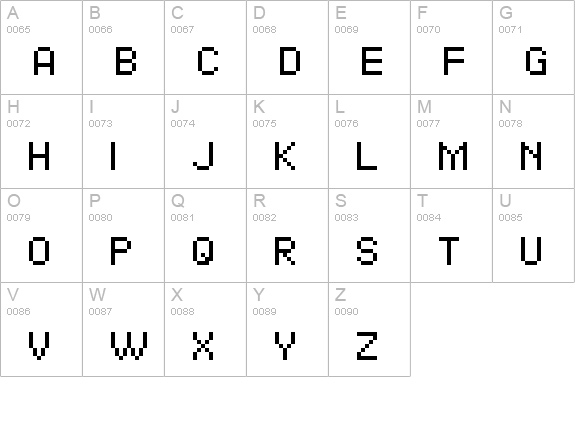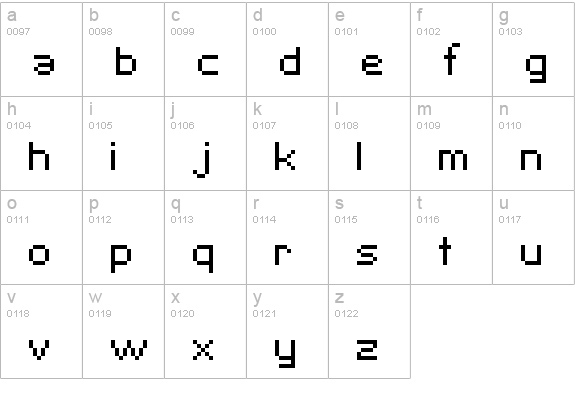
SF Pixelate Font Details
SF Pixelate is a captivating and visually striking font that brings a unique twist to your designs. With its pixelated and blocky appearance, this font adds a touch of retro charm while maintaining a modern edge. The precision and clean lines of SF Pixelate make it perfect for various design projects, from digital art to gaming graphics or even futuristic branding. One of the best things about SF Pixelate is that it is available for free. Yes, you read that right! This incredible font can be freely downloaded from FontsMarket.com, allowing you to add a dynamic and eye-catching element to your creations without breaking the bank. Whether you're a professional designer or a passionate hobbyist, SF Pixelate offers you the opportunity to explore your creative potential without any cost barriers. The versatility of SF Pixelate is unparalleled. Its distinct and bold aesthetic is ideal for creating attention-grabbing headlines, logos, posters, and more. The pixelated design gives your text a vintage video game vibe, instantly evoking nostalgia and capturing the imagination of viewers. Additionally, its legible and easy-to-read characters ensure that your message is conveyed effectively, even in small sizes or on screens with low resolution. SF Pixelate is a font that embraces the digital age while paying homage to the past. Its seamless integration of retro and contemporary design elements makes it a standout choice for any project that seeks to make a lasting impact. So why wait? Download SF Pixelate for free today at FontsMarket.com and unleash your creativity with this visually captivating font.